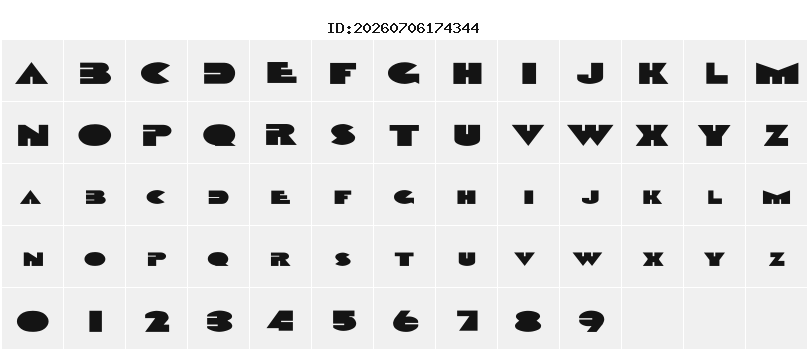
Devendra Ex Preview
• Font Name: Devendra Ex
• Font ID: Devendra Ex Regular:
• Full Font Name: Devendra Ex
• PostScript Name: DevendraEx
About Devendra Ex.ttf
Devendra Ex.ttf is a modern, elegant sans-serif font designed for ultimate readability and visual harmony. Perfect for branding, headlines, web design, and print materials.